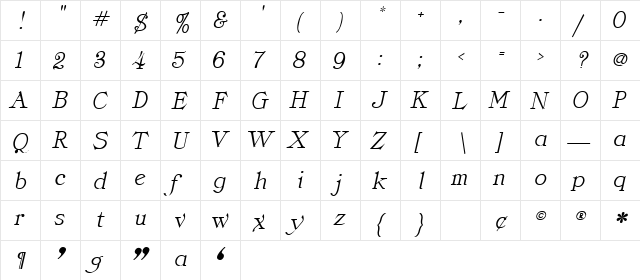
Cordella Italic
Design Context for Cordella Typeface
Cordella offers clean, dependable letterforms without strong stylistic allegiance, making it a practical choice for designers who need flexibility. The dynamic lean of this cut emphasises speed and emphasis in any layout.